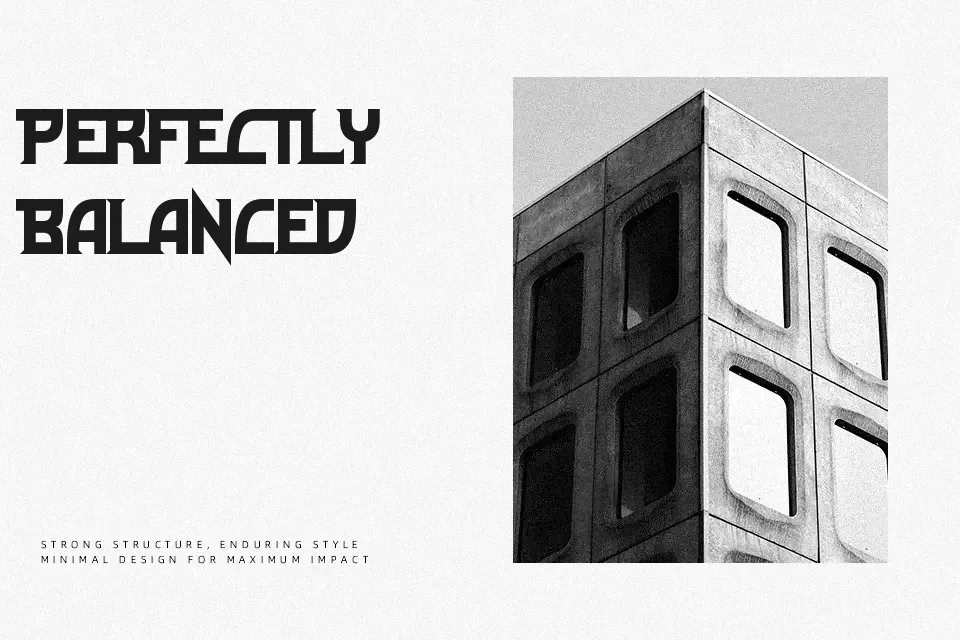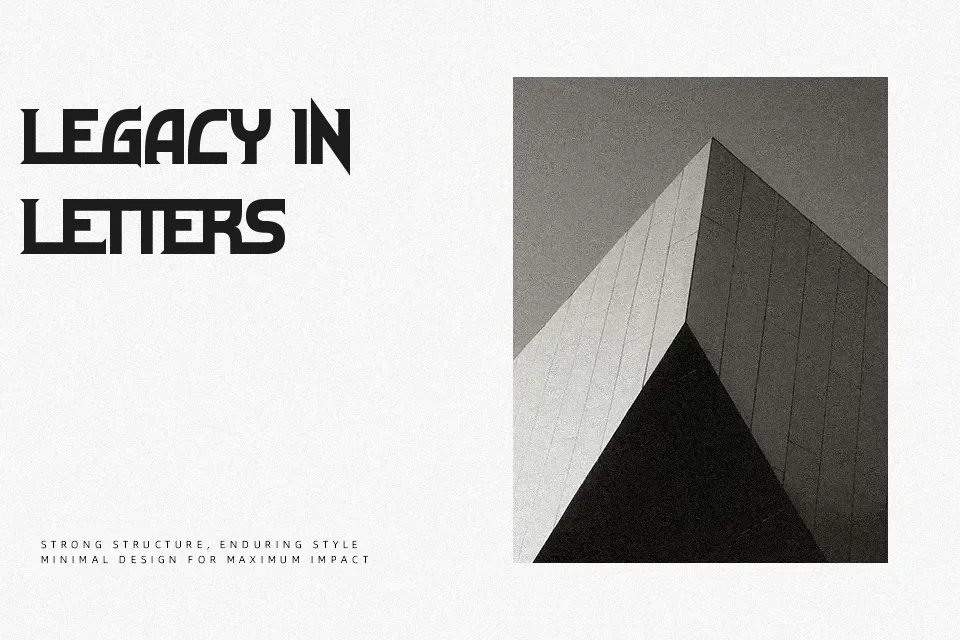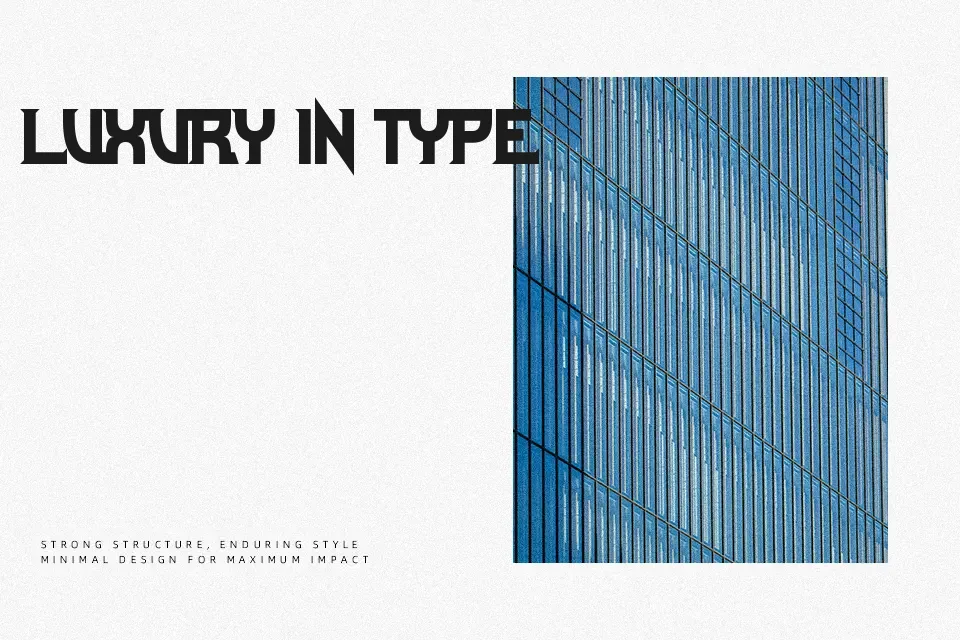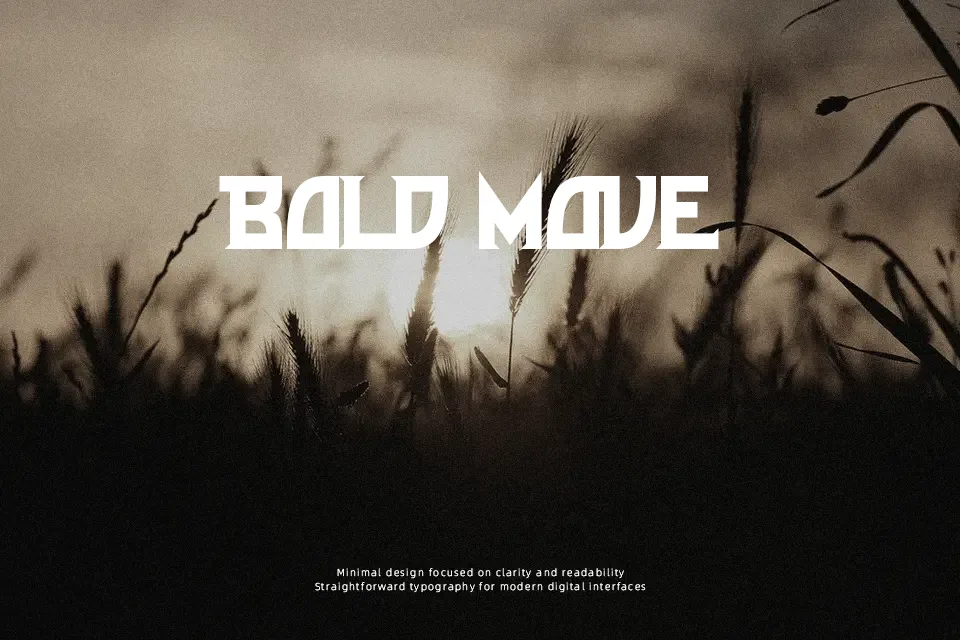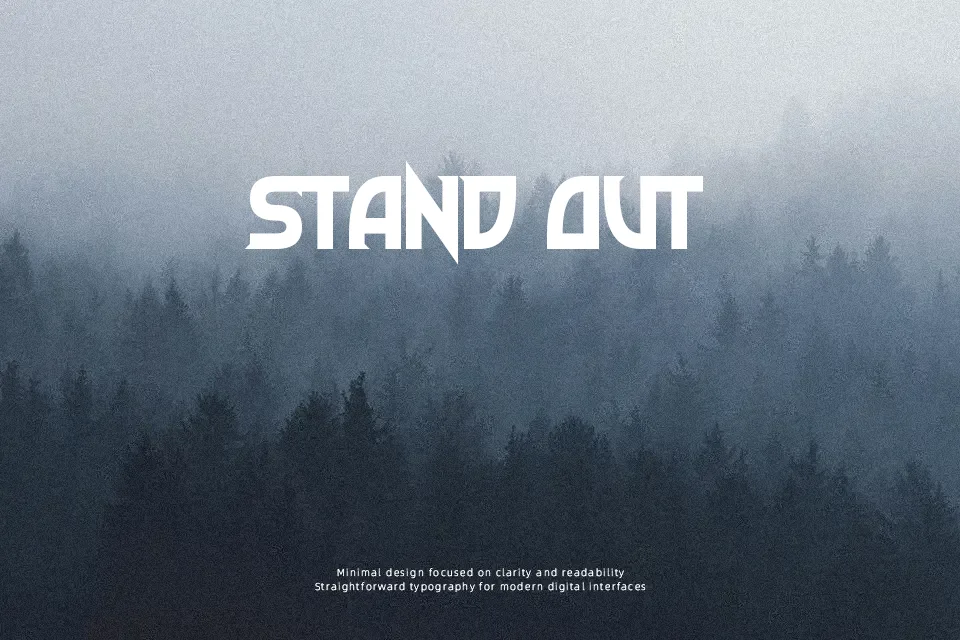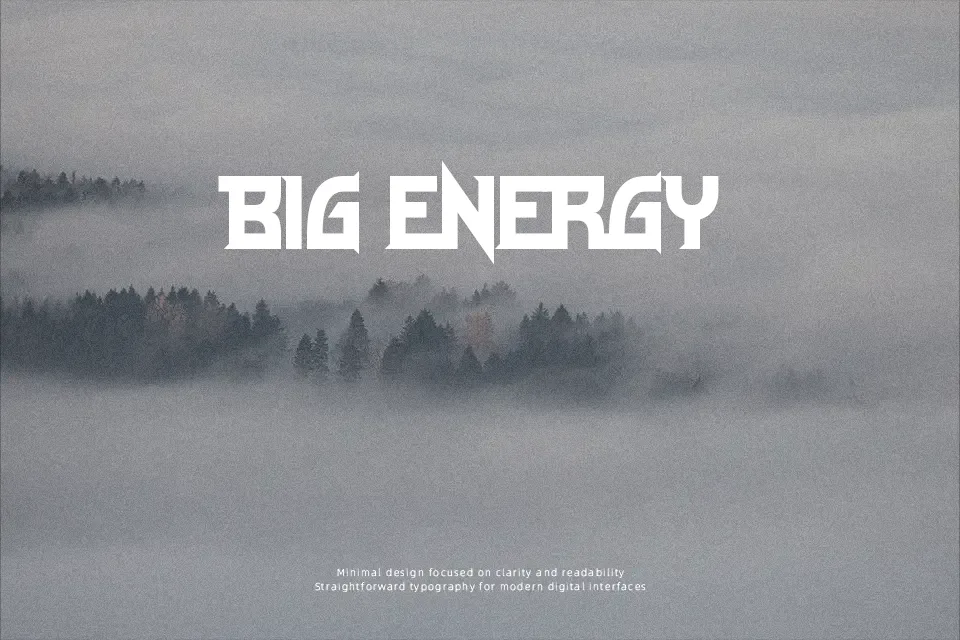
Ultramarine Font
Ultramarine Font performs best when displayed at larger sizes where its bold geometric shapes and structured proportions establish immediate presence. Heavy uniform strokes give the typeface an unmistakable retro aesthetic, while balanced horizontal spacing prevents adjacent characters from colliding in compact arrangements. The letterforms prioritize high visual impact through squared terminals and wide contours, making the design particularly effective for arcade title screens, sci-fi promotional banners, and energetic package graphics. However, the sheer density of the strokes significantly reduces comfort during continuous reading. At small sizes, interior counters close up rapidly, so the font is less suitable for multi-line body copy or intricate caption typography.
retro video game titles, sci-fi event posters, electronic music packaging, arcade flyer headlines
long paragraph text, dense editorial layouts, small mobile interface labels, printed book body copy
Perfect for gaming, headline, and logo, with a bold and decorative style.